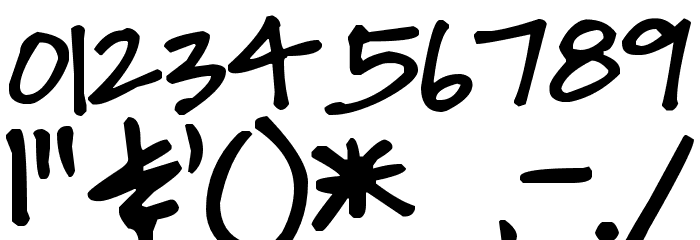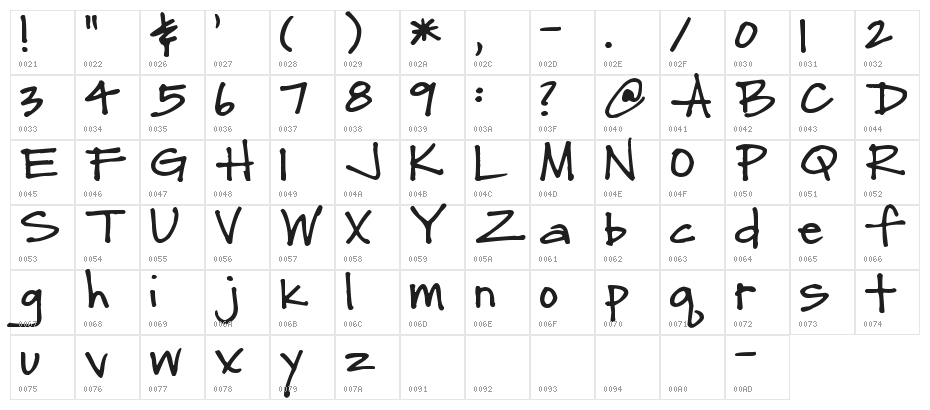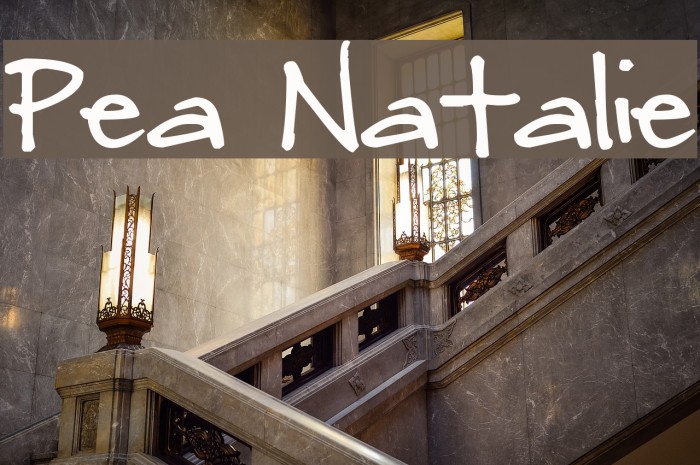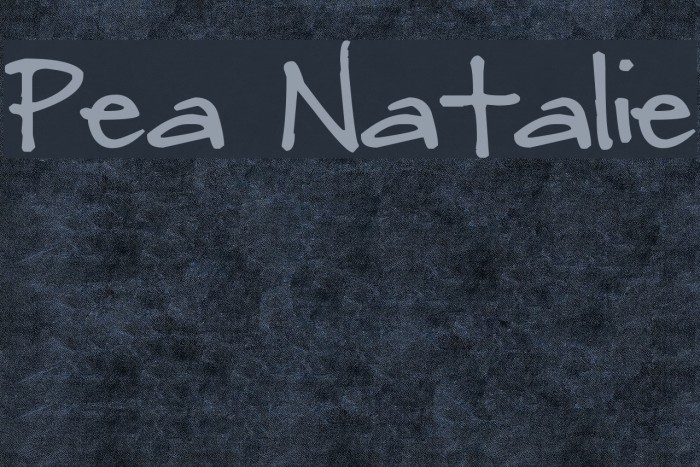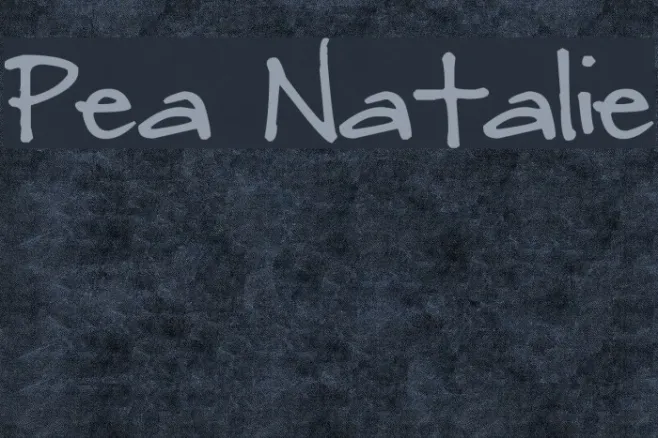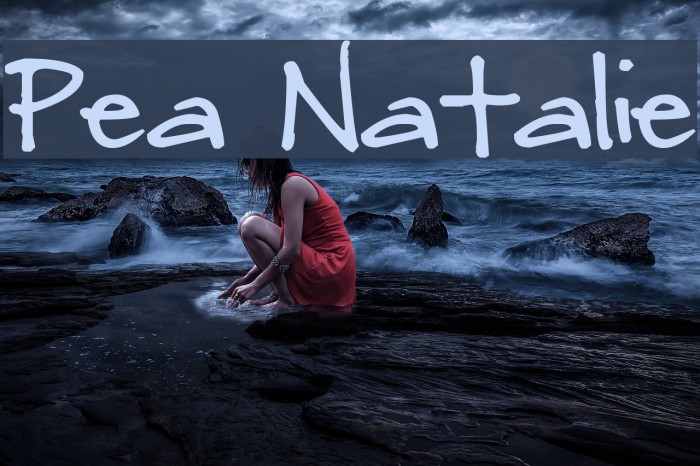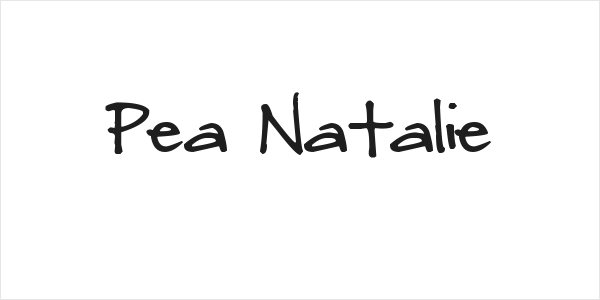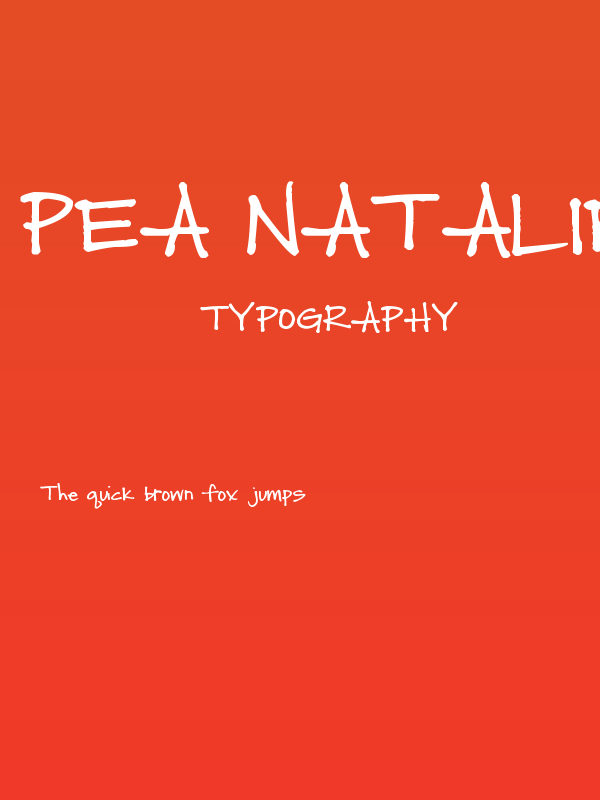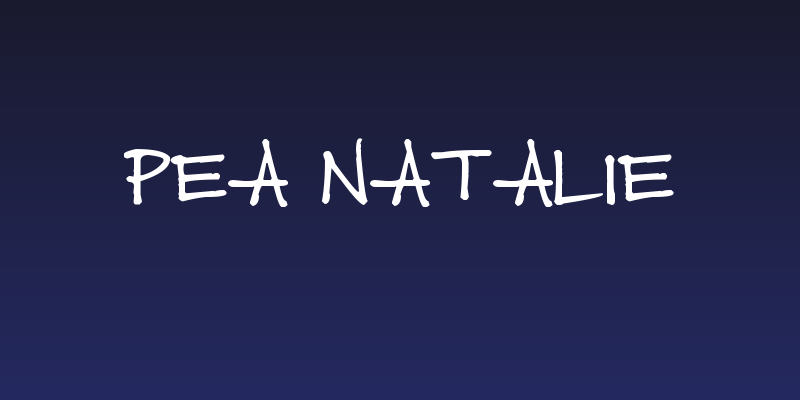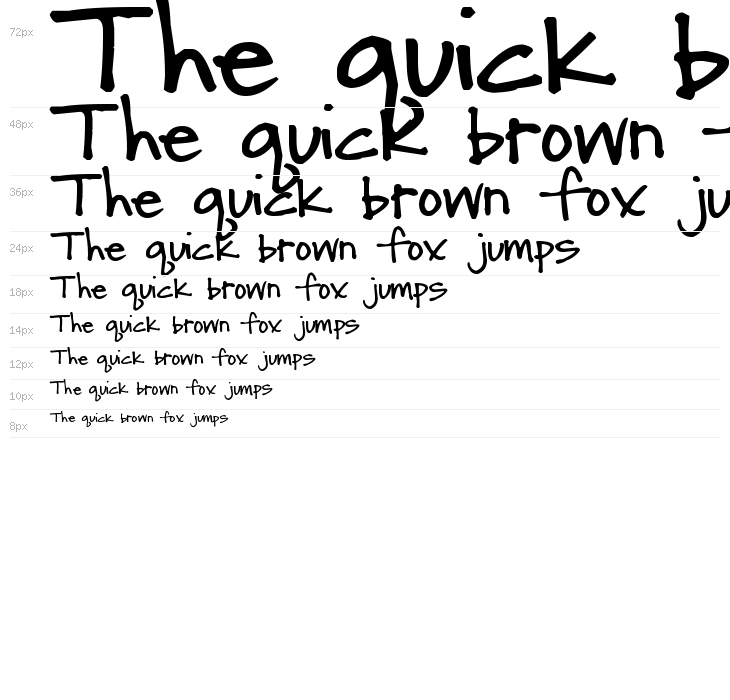
Pea Natalie Font
Pea Natalie Description
This font exudes a playful and casual handwritten style, characterized by its uneven strokes and informal appearance. The letters are slightly slanted, adding to the relaxed feel, while maintaining legibility. The uppercase and lowercase letters are distinct, with a noticeable difference in size and form. Numbers and special characters follow the same informal style, making them suitable for creative and personal projects. The overall design is reminiscent of a quick, yet deliberate handwriting, perfect for conveying a friendly and approachable tone.
| Proposed Projects | Ideal for personal notes, greeting cards, informal invitations, and creative projects that require a friendly touch. |